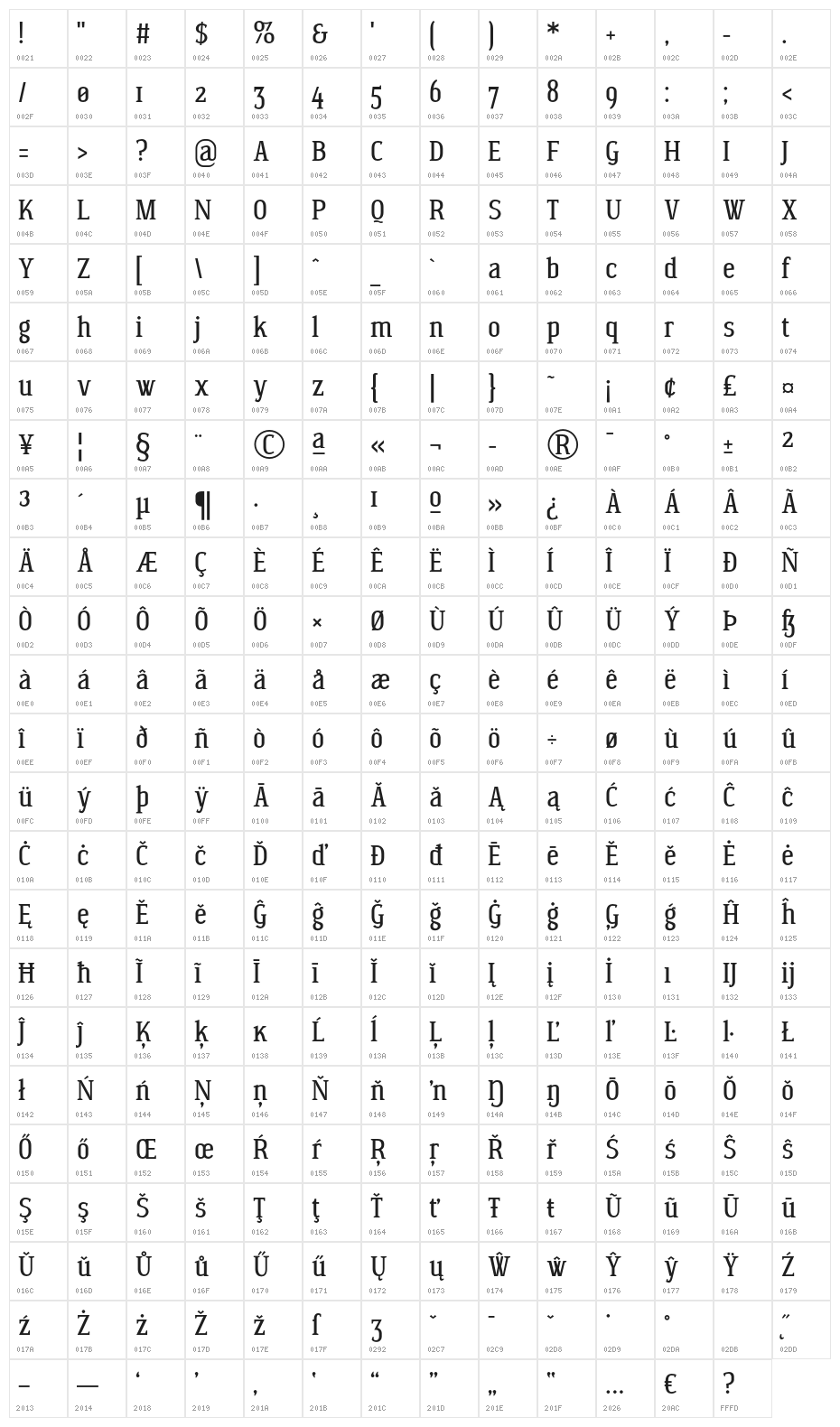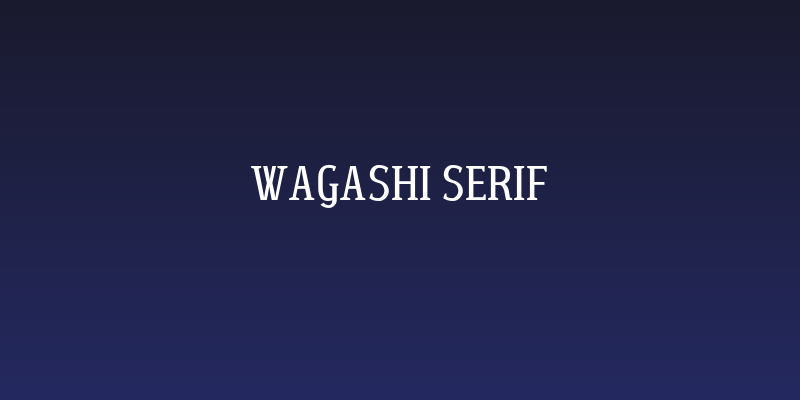
Wagashi Serif Font
Wagashi Serif Description
This serif font features a classic and elegant design with distinct serifs that add a touch of sophistication. The uppercase letters are bold and commanding, while the lowercase letters maintain a balanced and readable form. The numerals are clear and consistent, making them suitable for various applications. Special characters are well-defined, ensuring versatility in design projects. The overall appearance is traditional yet adaptable, making it a great choice for formal and professional settings.
| Proposed Projects | Ideal for book covers, formal invitations, branding materials, and editorial design. |